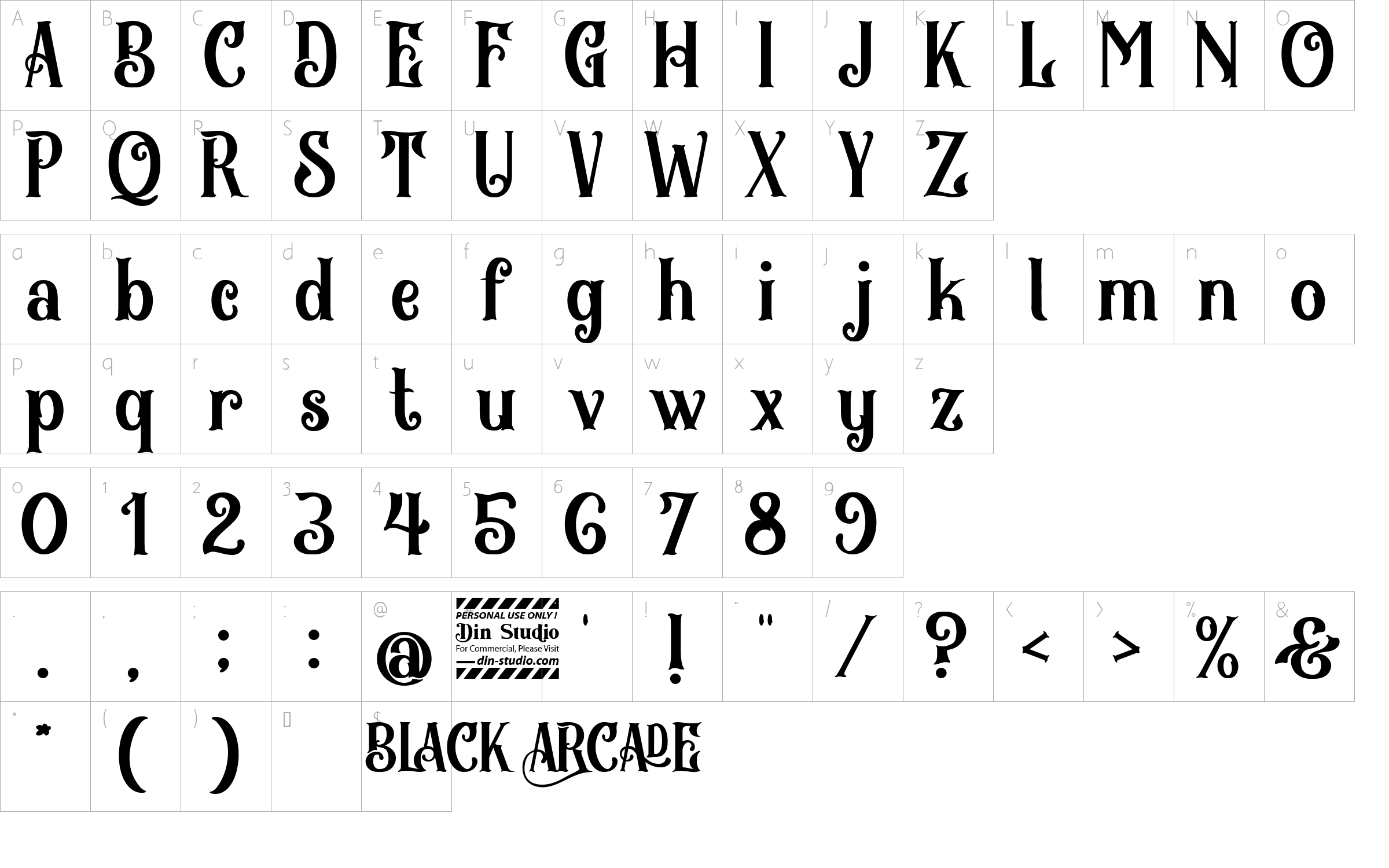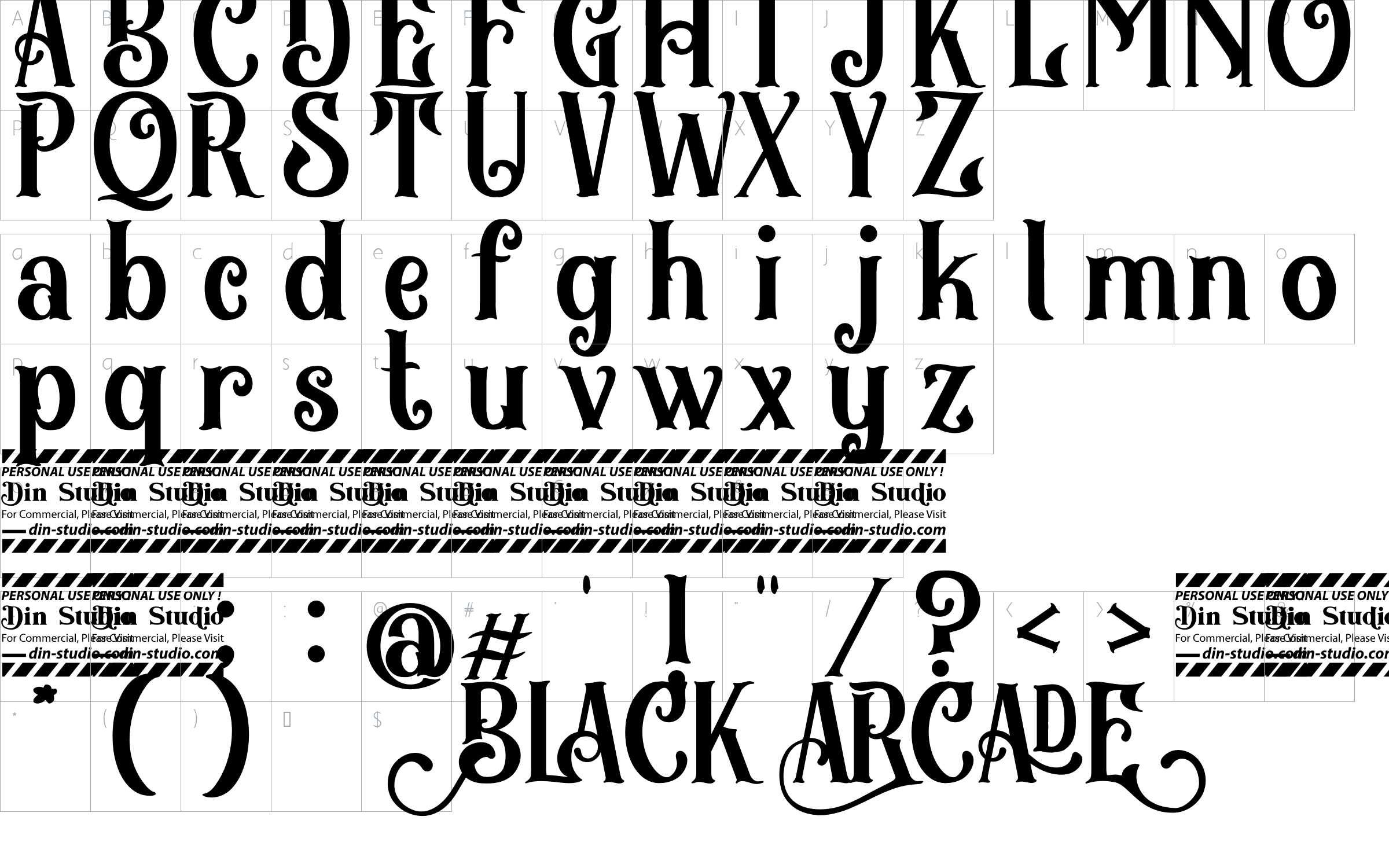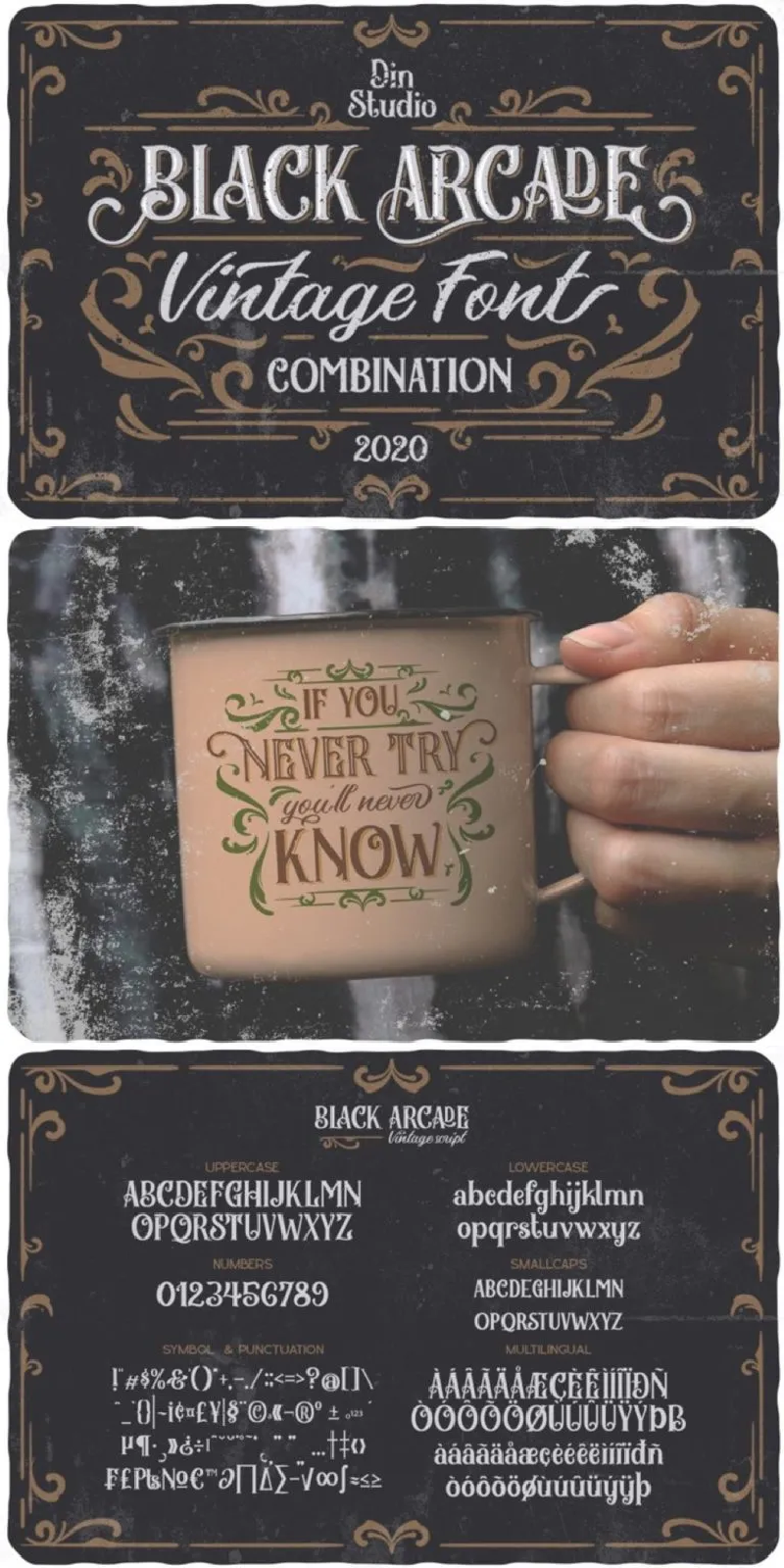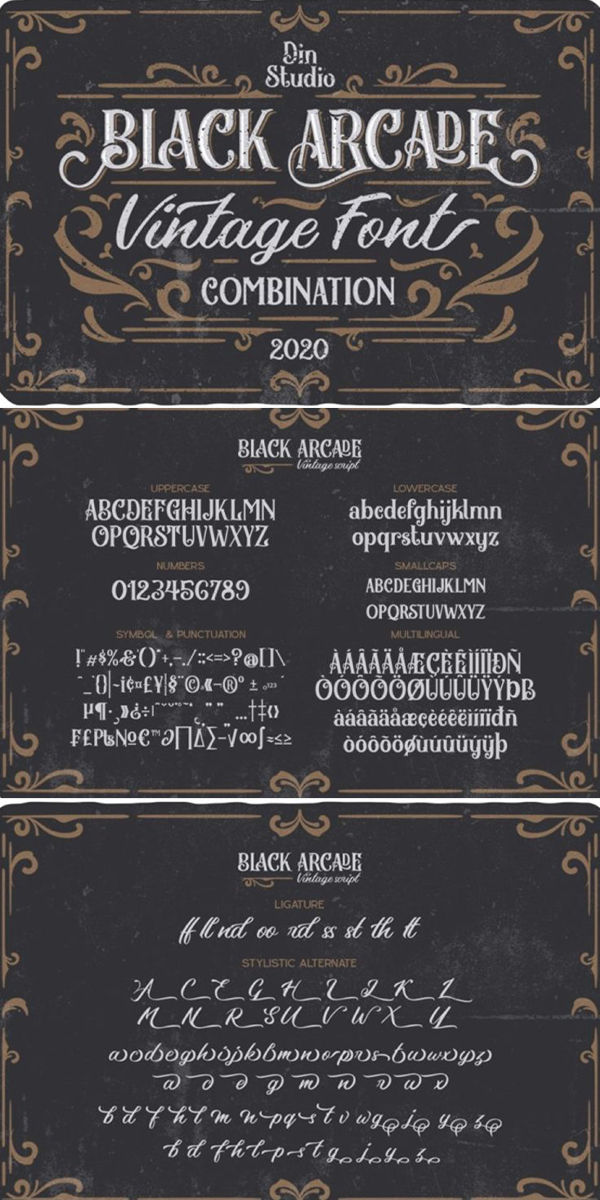
BLACK ARCADE Font
About BLACK ARCADE
Black Arcade Font Pack. The Amazing Font Pack for your design project such as social media campaign, logotype, advertising, merchandise, book cover, cards, and more. See the previews above to get some inspiration on how you can use them. Enjoy the font!
-10 Ligatures
-Numerals and Punctuation (OpenType Standard)
-Display Font
-Script Font